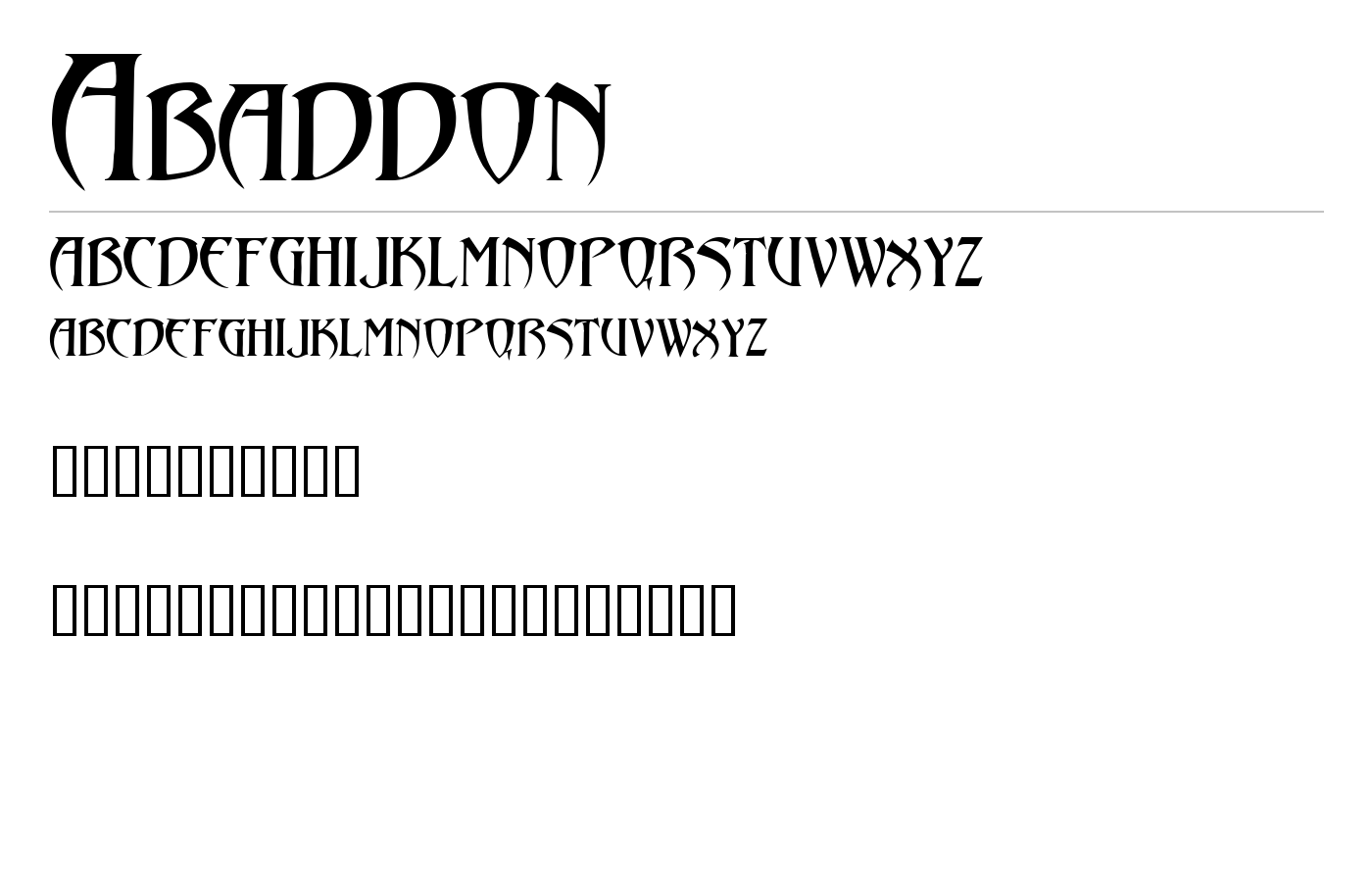
Abaddon™ is a sharp, gothic-inspired serif font with dramatic, spiked serifs and a condensed, tall structure that gives it a dark, mysterious vibe. Its high contrast and angular strokes make it perfect for edgy branding, fantasy themes, or striking headlines where a bold, unique statement is needed. This font works best in creative projects seeking a powerful, somewhat ominous atmosphere, such as logos, posters, or game titles.
Abaddon™ Font
About Abaddon™ Font